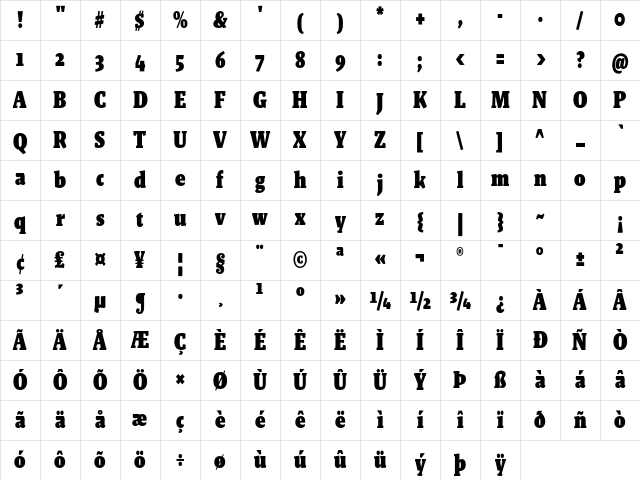
Malaga Narrow OT Black Free Font
Malaga Narrow OT Black
Foundry: Emigre Inc.
Designer: Xavier Dupre
Design Context for Malaga Narrow OT
Malaga Narrow OT is a composed and adaptable typeface that performs quietly and consistently across a wide range of design contexts. Its narrow stance lets it pack a punch even in space-constrained designs.